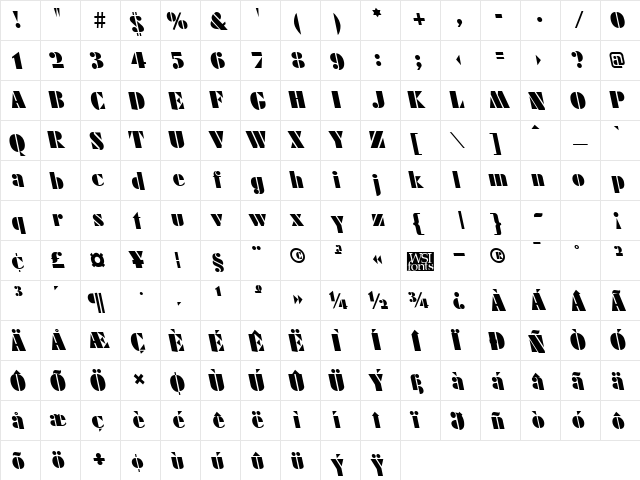
FuturistLeftyBlack Regular
Design Context for FuturistLeftyBlack Typeface
FuturistLeftyBlack has a distinctly futuristic character, with geometric precision and clean angles that feel at home in technology, gaming, and sci-fi contexts.